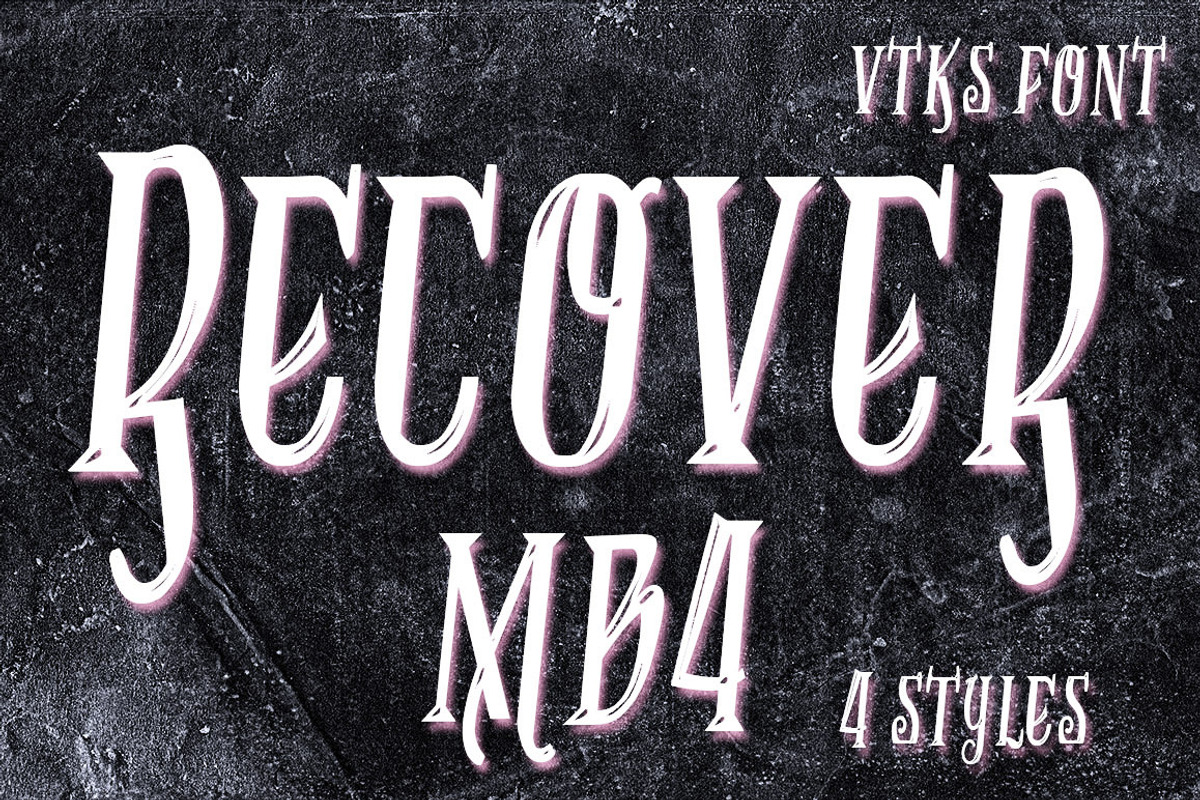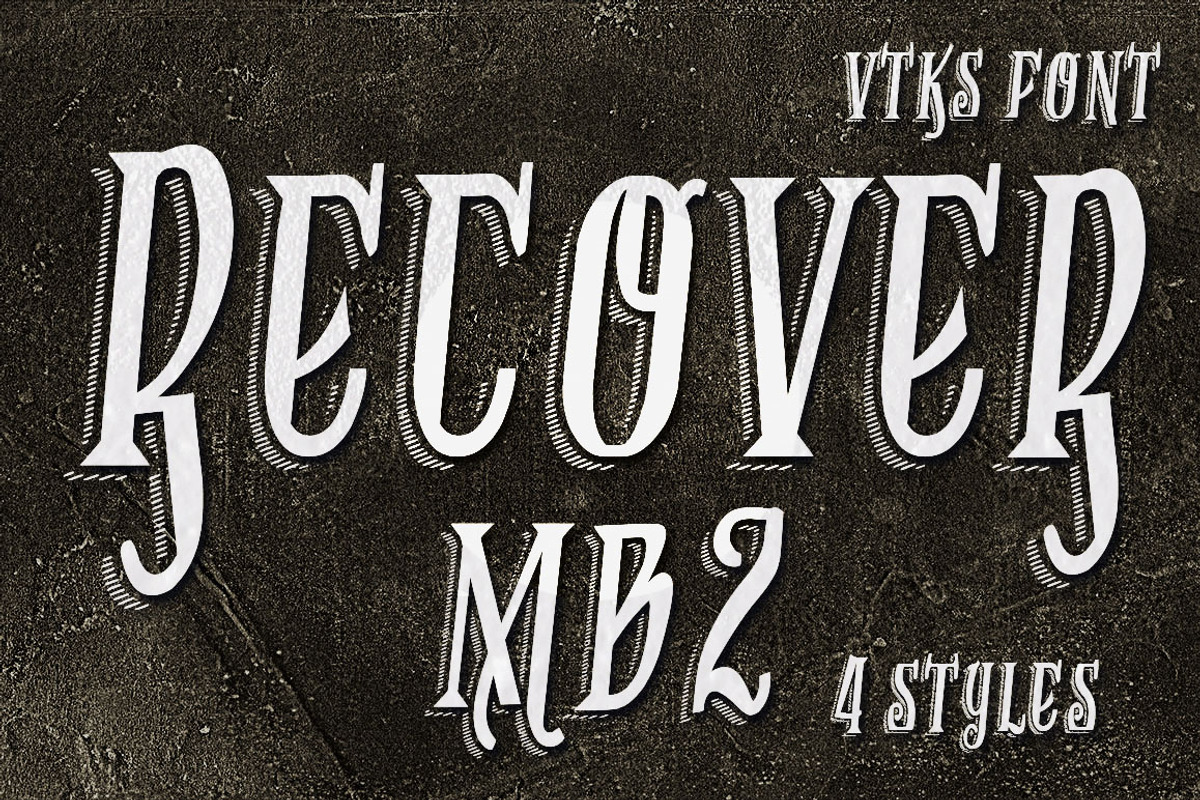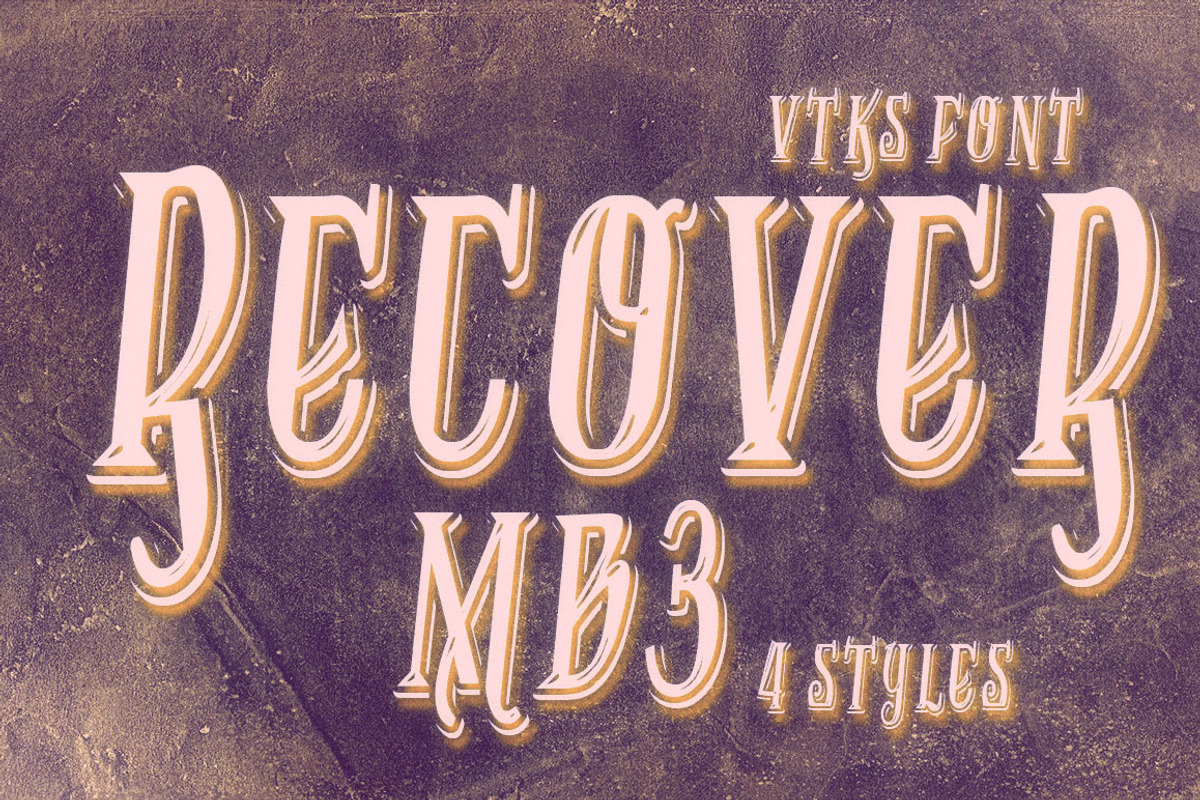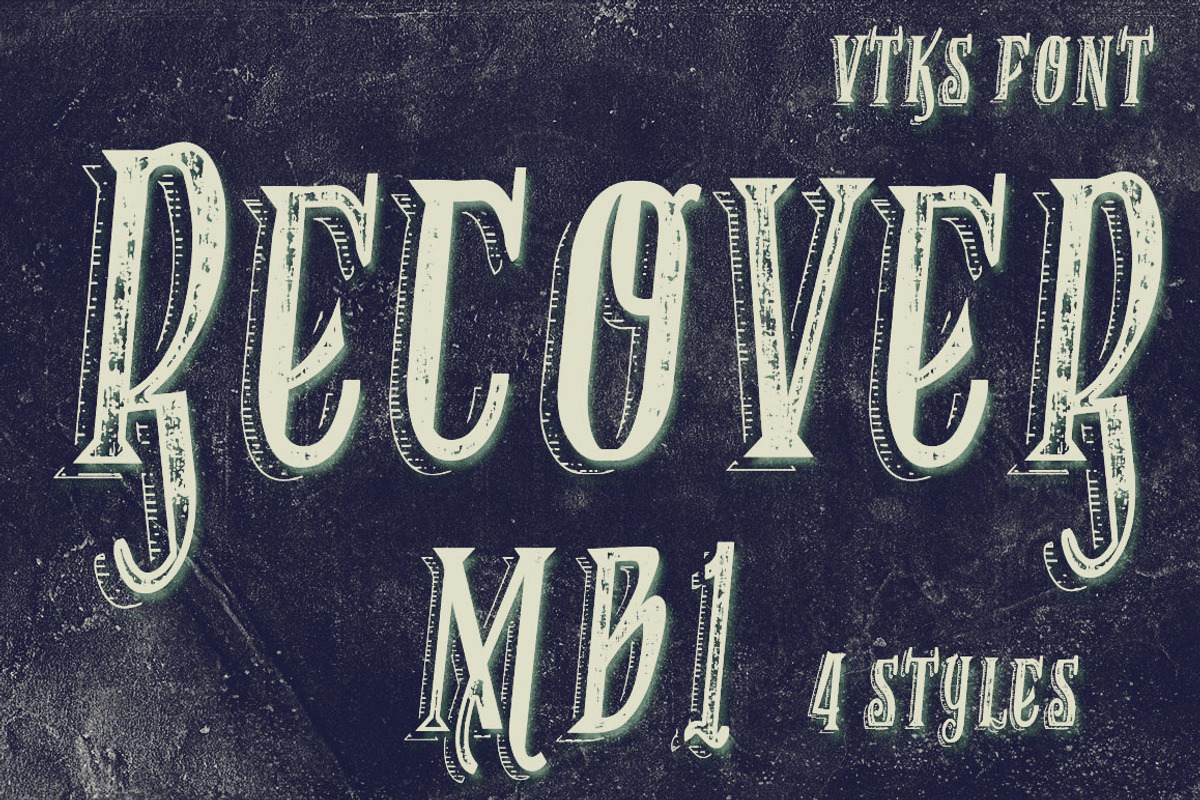
Recovery MB font
Recovery MB font by vtks design is a font selected for branding, posters, packaging, typography.
Why Recovery MB font is worth a look
Recovery MB font by vtks design fits naturally into Branding, posters, packaging, typography.